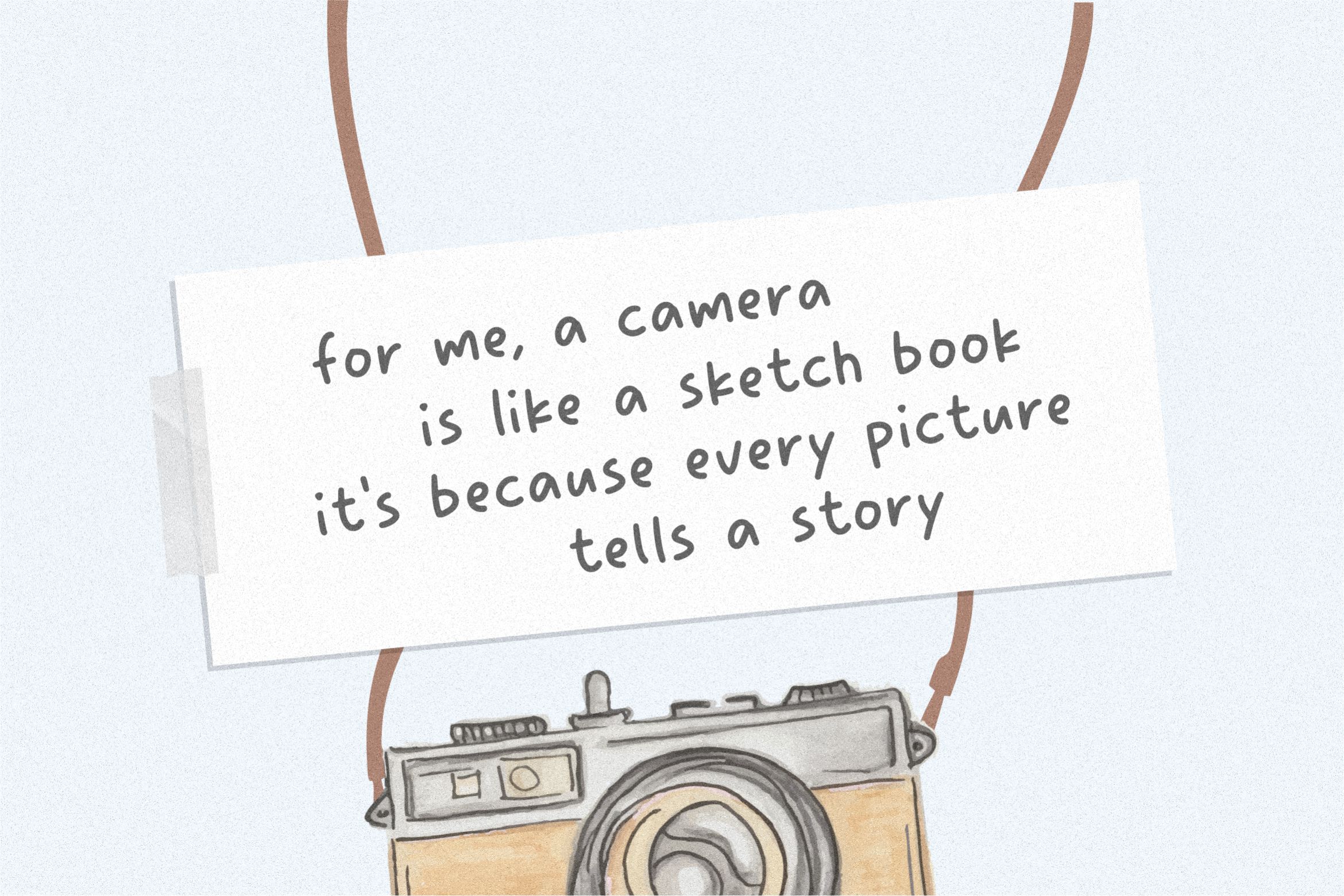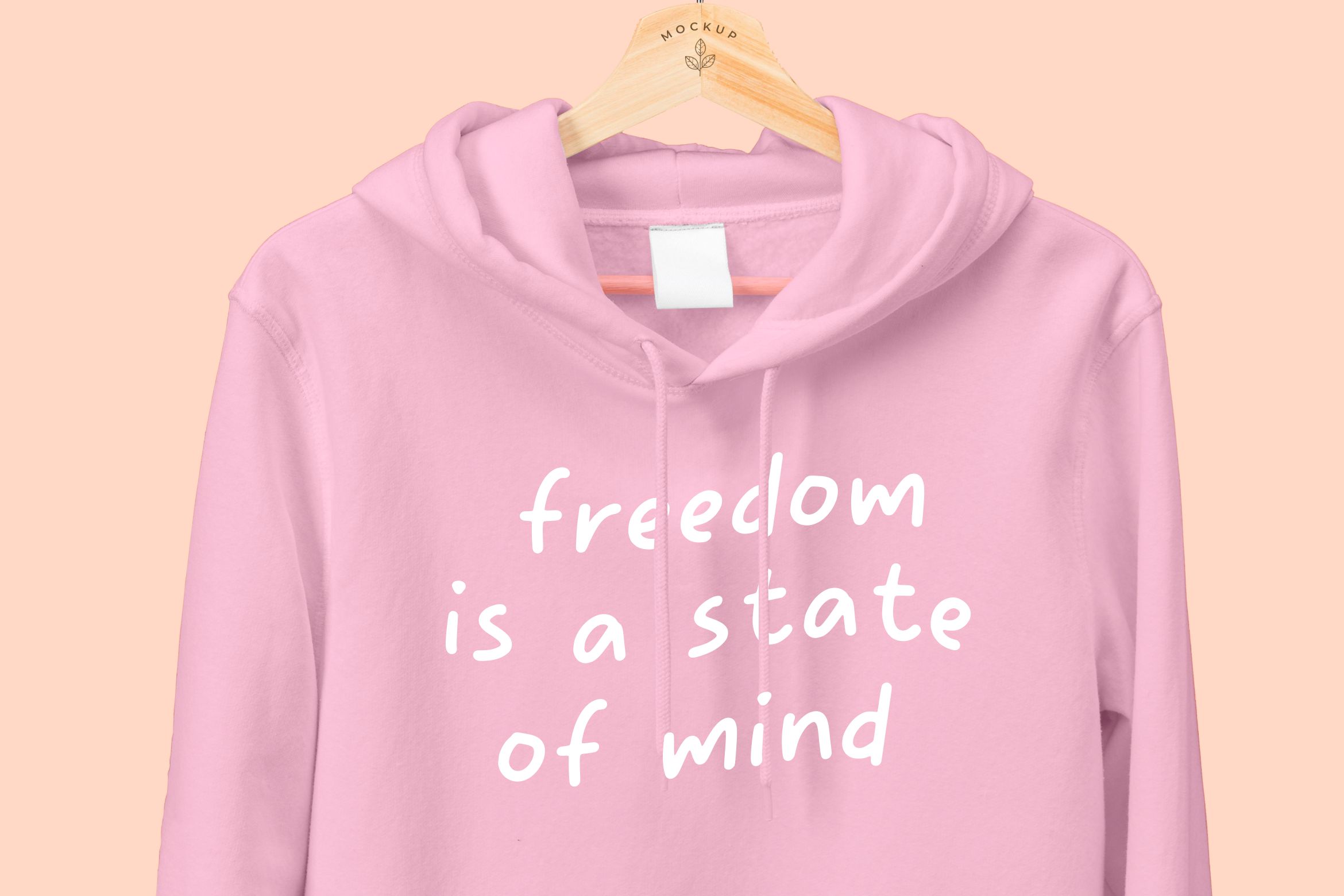
Little Moment Display Font
This font has the same thickness every stroke. The spacing of each letter is slightly wide, making this font look clean. Little Moment has a friendly taste with a warm and charming impression. This font is perfect for making quotes, T-shirts, mugs, or just annotating photos, and many other things.